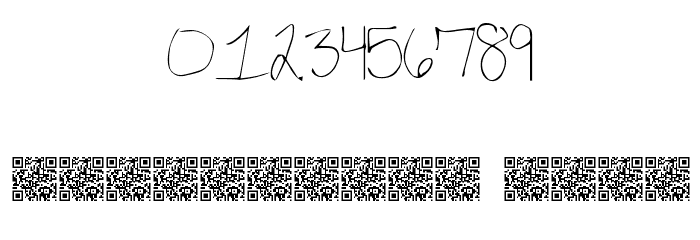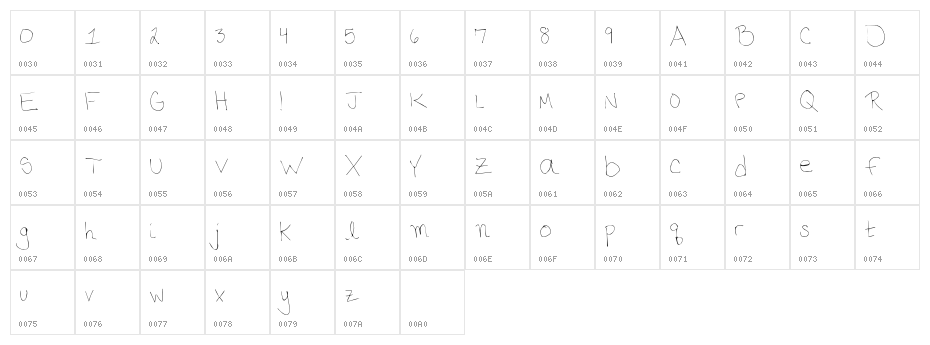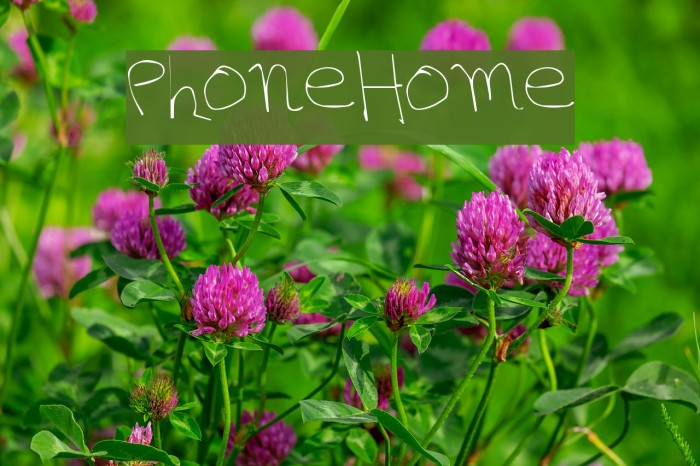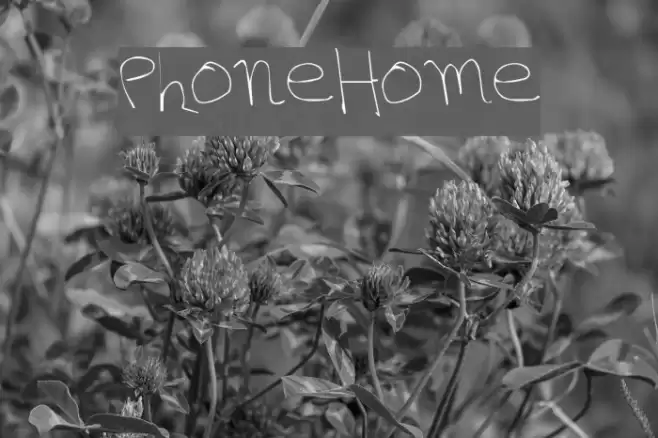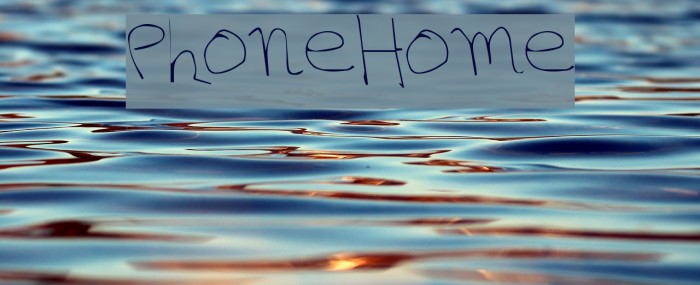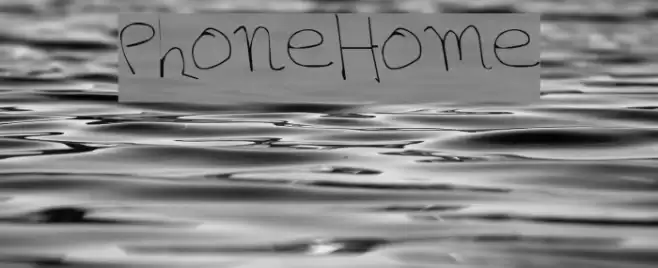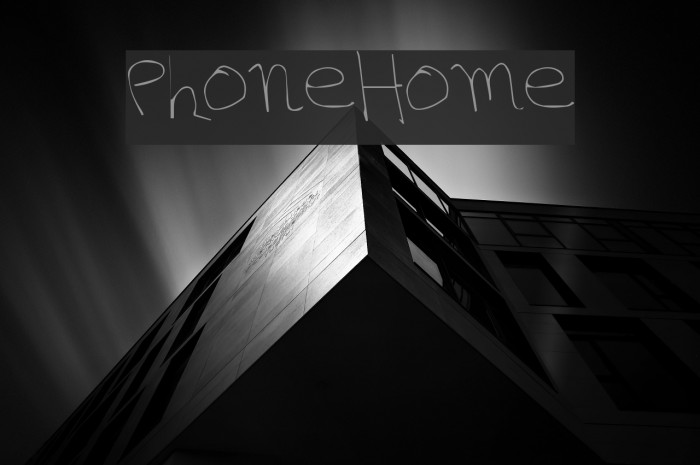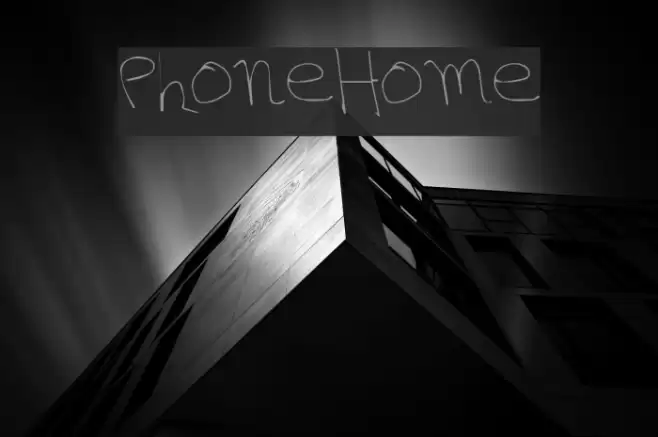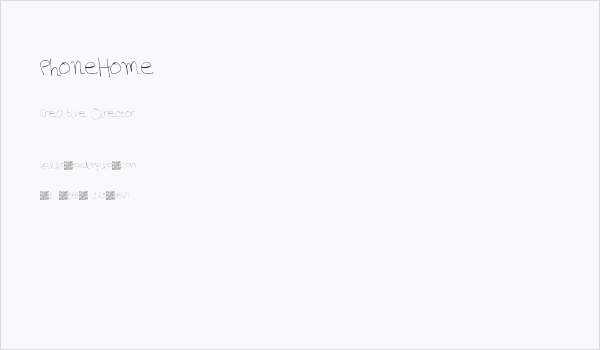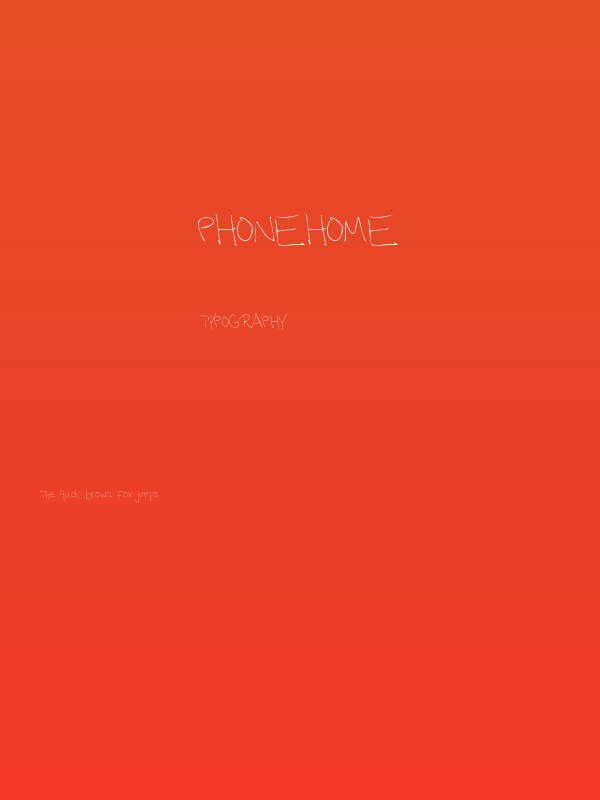
PhoneHome Font
PhoneHome Description
This font exhibits a casual, handwritten style with a playful and informal appearance. The characters are unevenly spaced, giving it a natural and organic feel, reminiscent of a personal note or a quick sketch. The strokes are thin and slightly irregular, adding to its charm and authenticity. The uppercase letters are tall and slightly narrow, while the lowercase letters maintain a consistent flow, enhancing readability. The numbers are distinct and align well with the overall style, making them suitable for creative projects. Special characters are included, maintaining the same whimsical aesthetic.
| Use Case | Logos, Informal Text, Creative Projects |
| Proposed Projects | Ideal for greeting cards, personal notes, informal invitations, and creative branding projects. |